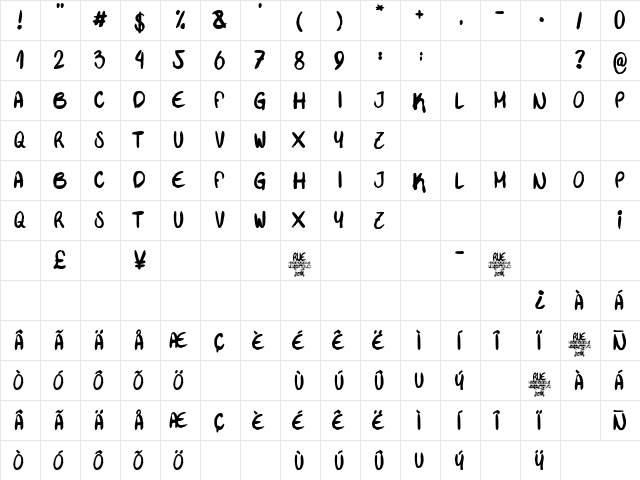
Rue Mademoiselle Regular
Design Context for Rue Mademoiselle Typeface
Rue Mademoiselle is a composed and adaptable typeface that performs quietly and consistently across a wide range of design contexts.